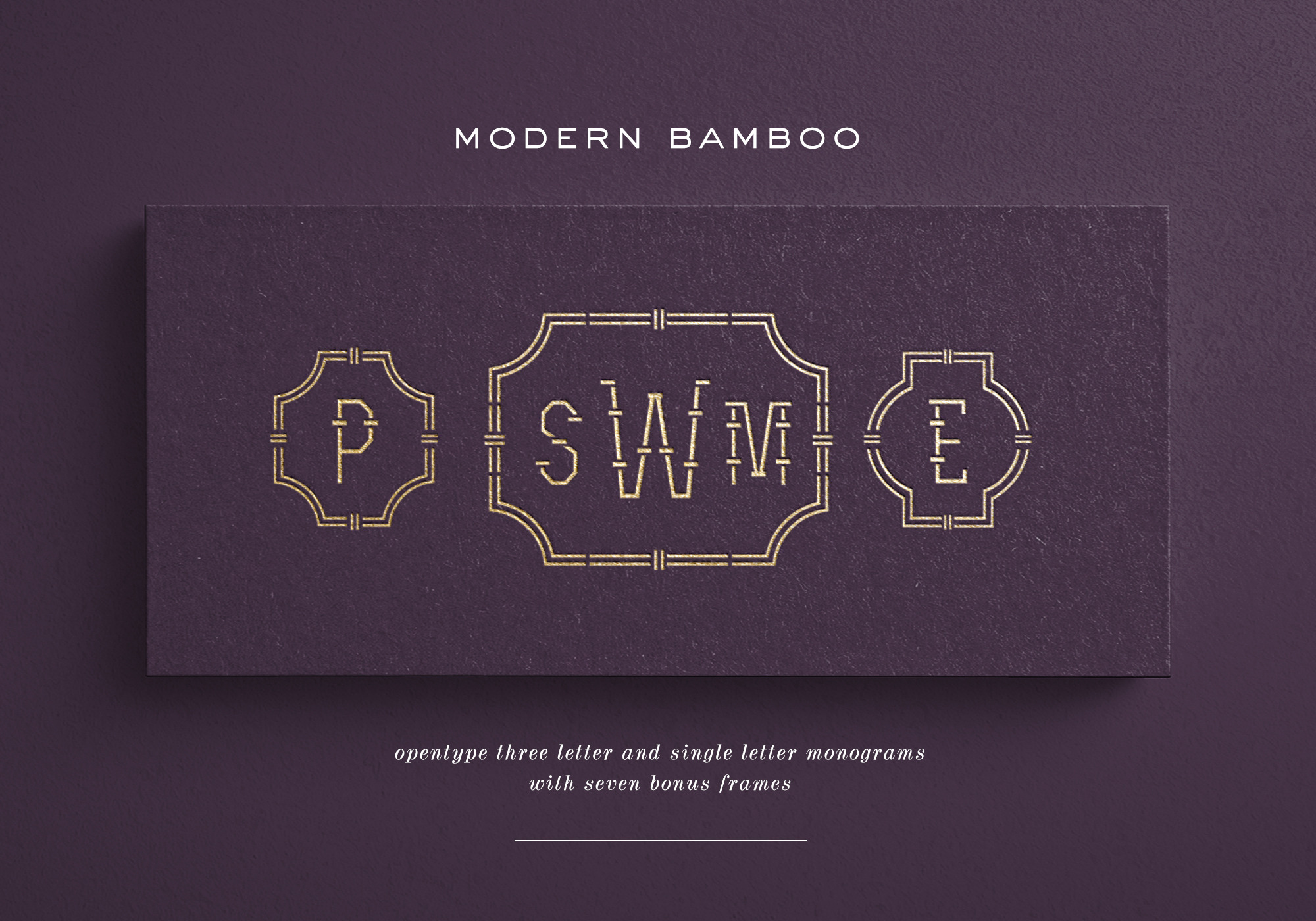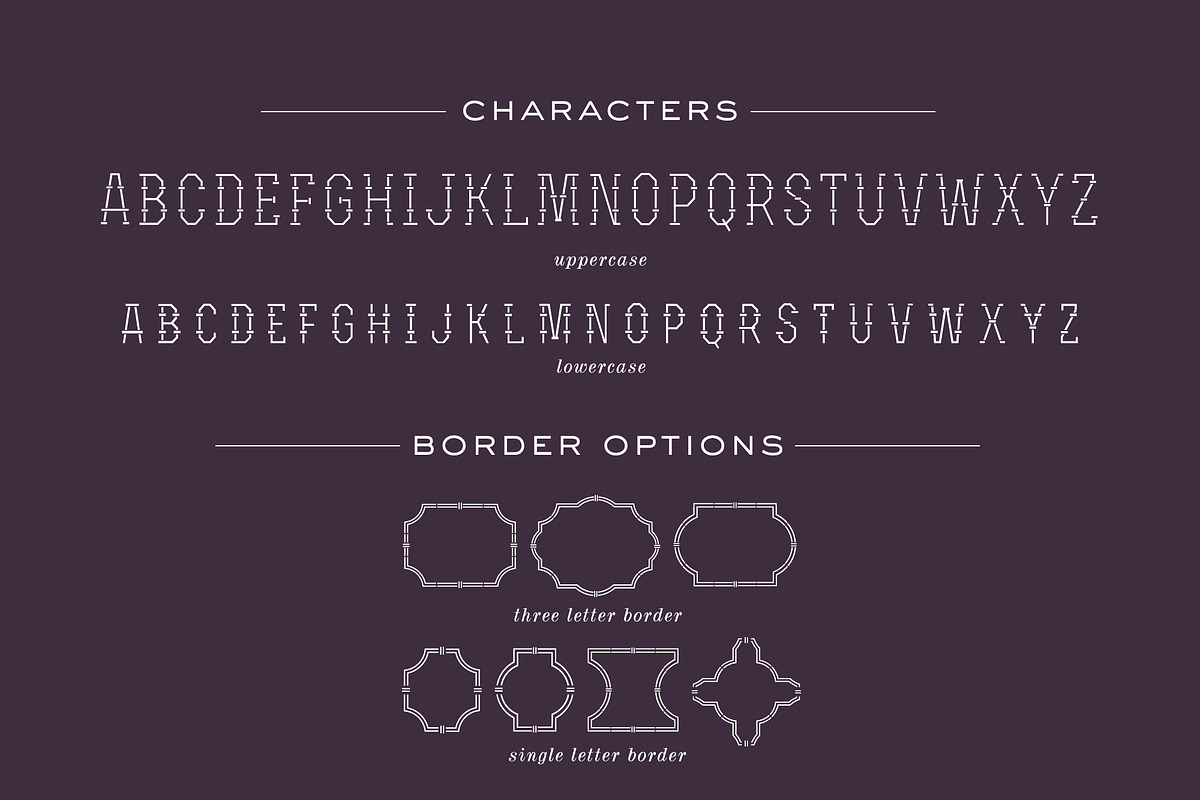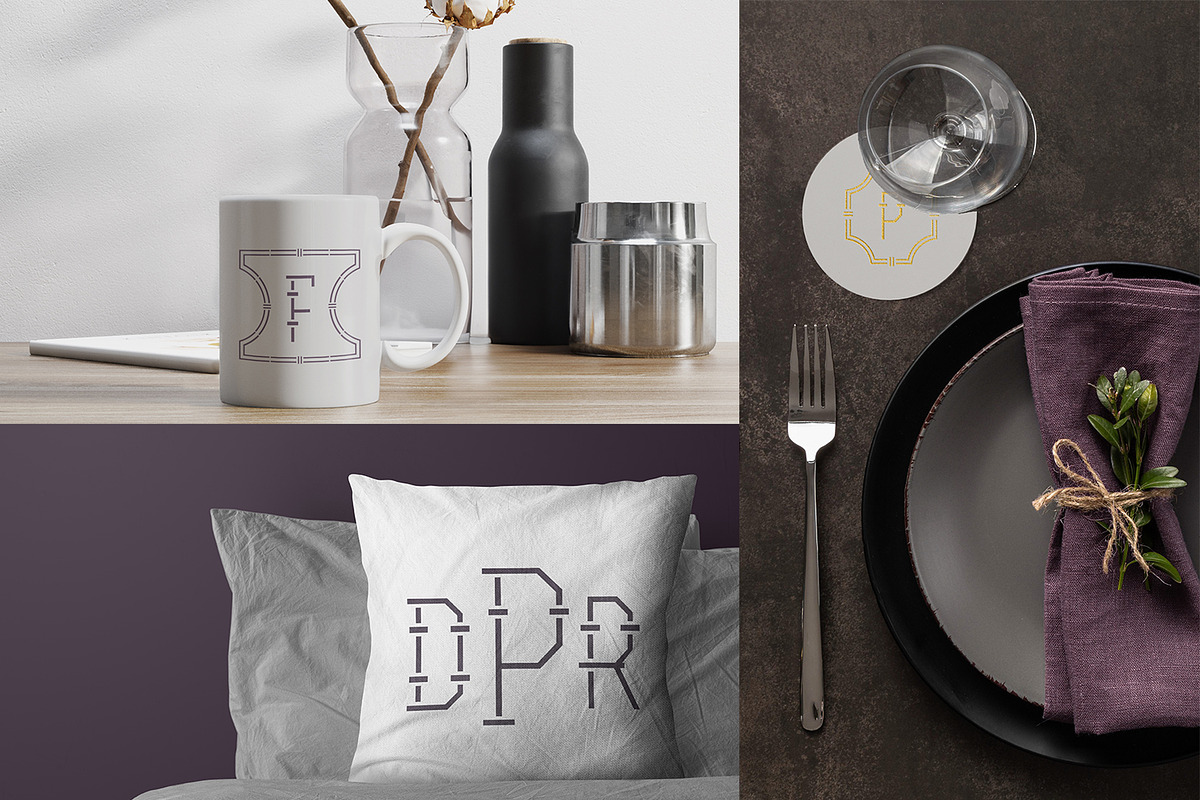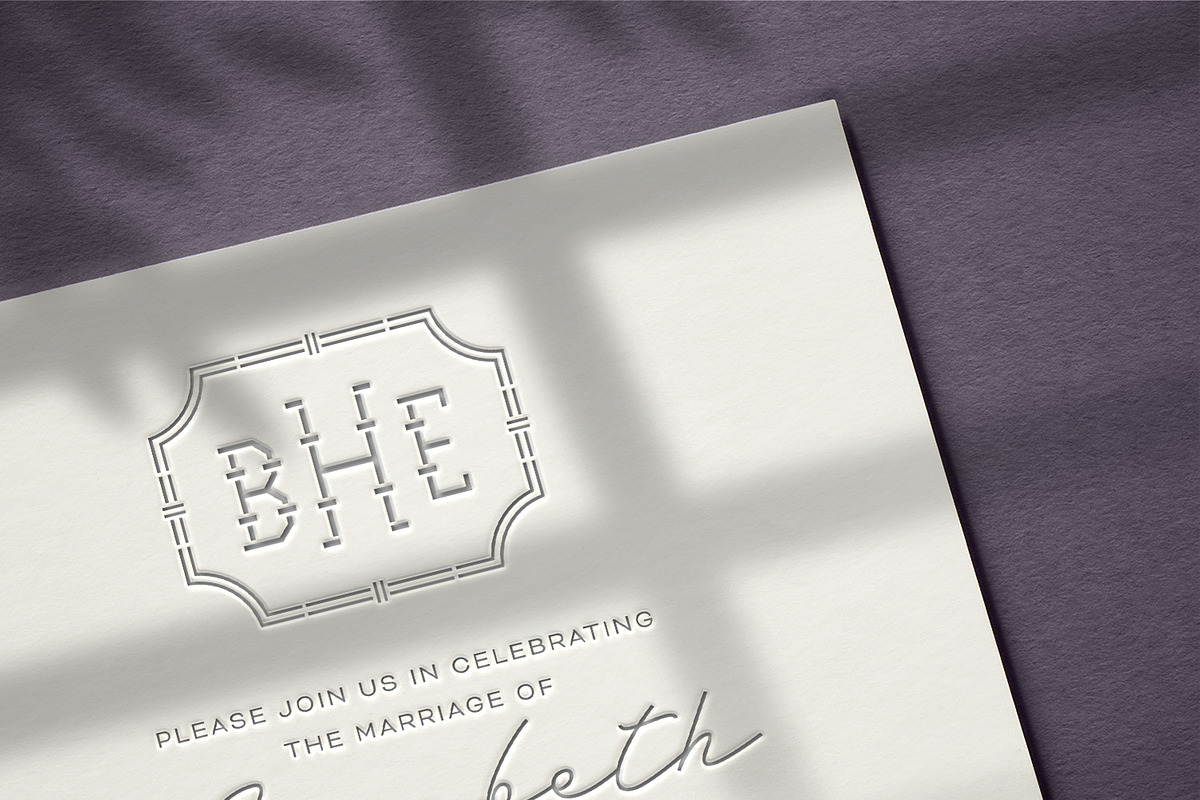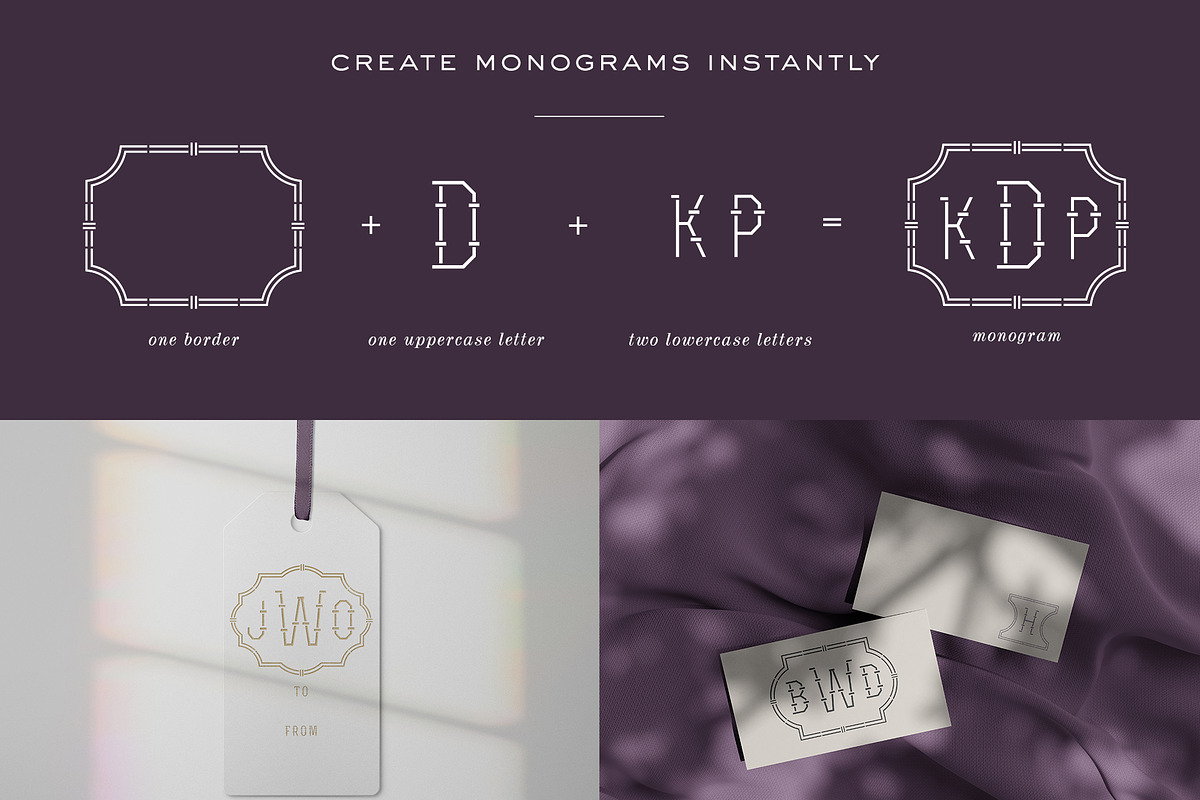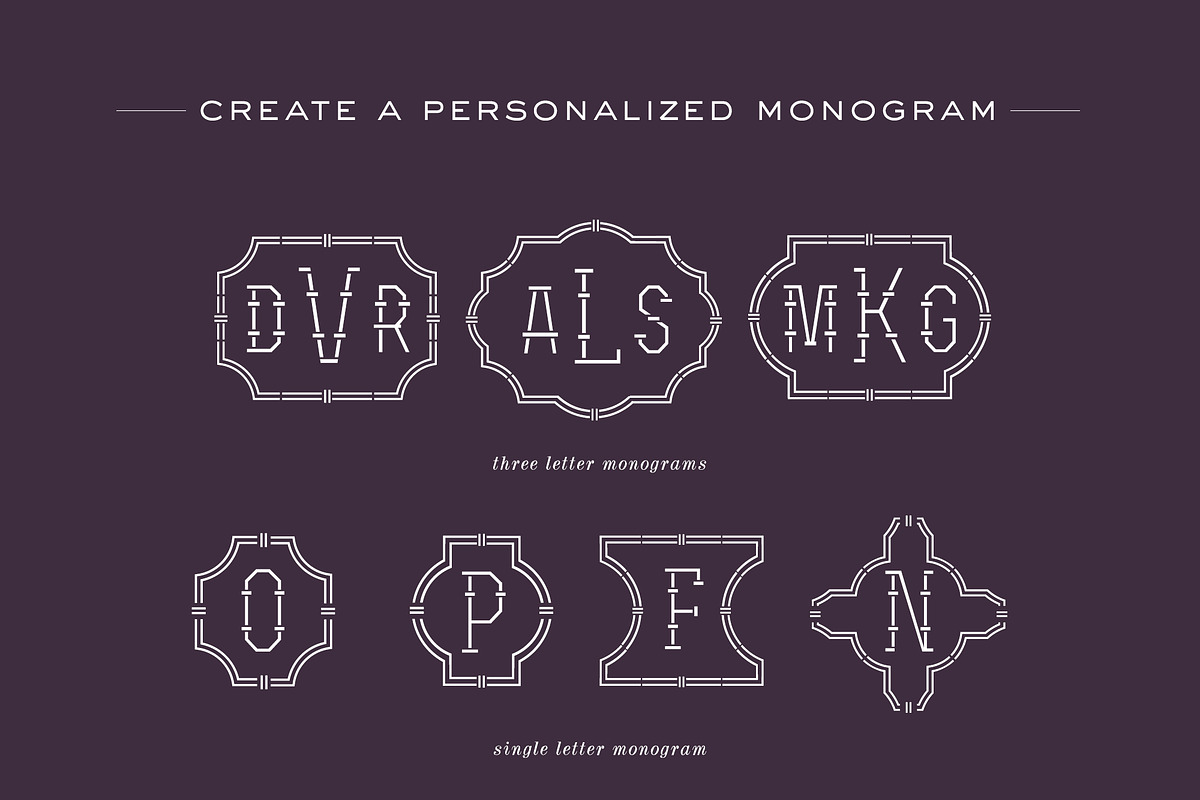
Modern Bamboo Monogram Font
Make gorgeous one, two and/or three letter monograms quickly and easily in any program with this OpenType font.
MODERN BAMBOO MONOGRAM FONT is the perfect monogram font suitable for wedding invitations, branding, stationery, blog design, custom art, return address stamps, custom embossers, etc. - the possibilities are endless!
This font may be used in any application that supports OpenType features including, but not limited to, Word, Pages, Photoshop, Illustrator and the rest of Adobe Creative Suite. The font file also includes a set of 7 predesigned unique frames that are perfect for combining with your monogram. The borders are vectors and have editable stroke widths for customizability.